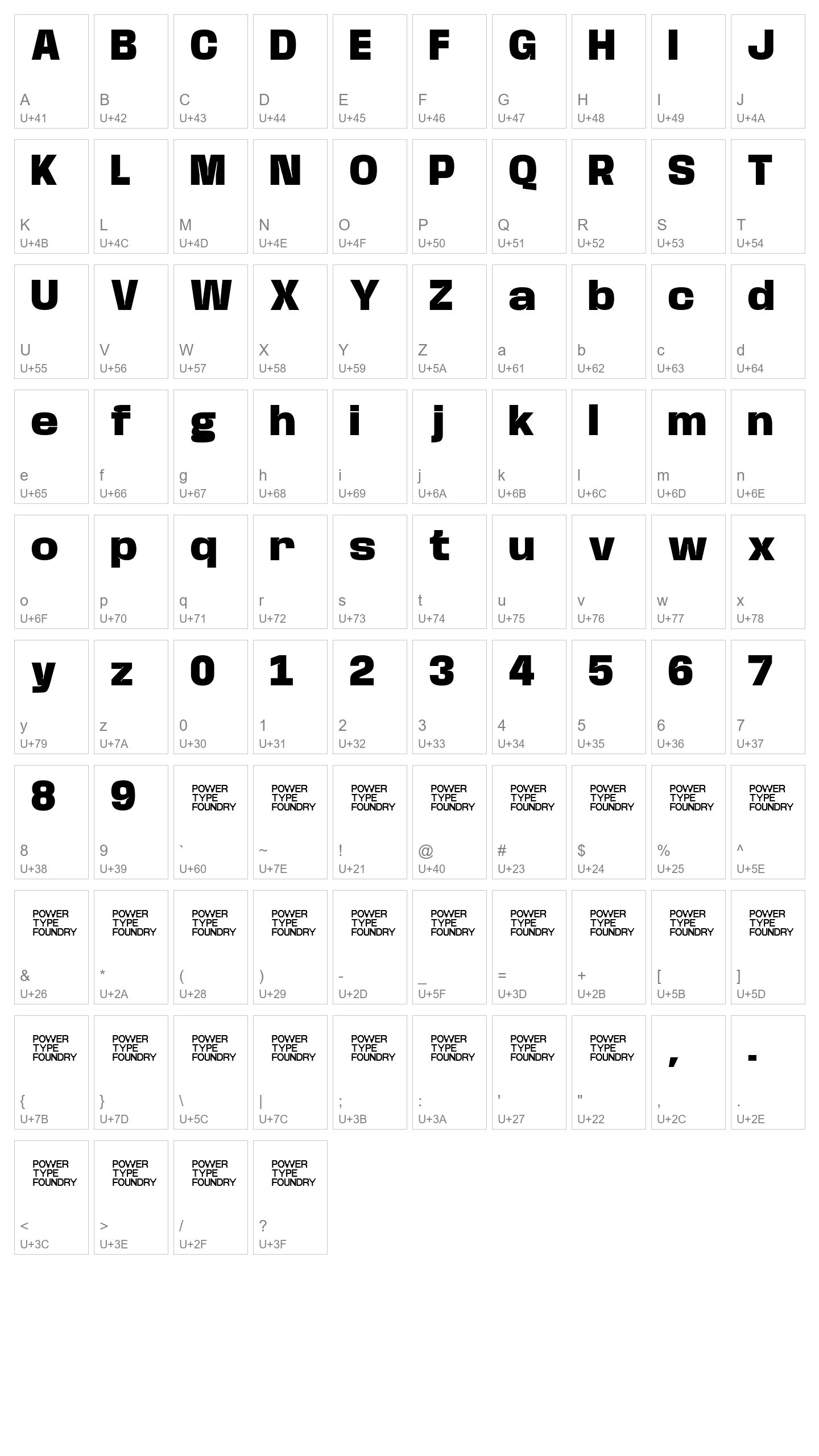
Base Neue
Base Neue is the reincarnation of the basic typography (adaptation) of modern civilization. InkTrap is applied and many variations that can be used for this typeface, from very narrow media to extra-large publications. Weights from thin to black and then there are widths from Super Condensed to Super Expanded, which of course are all used in various media, from heading or titles to body text.